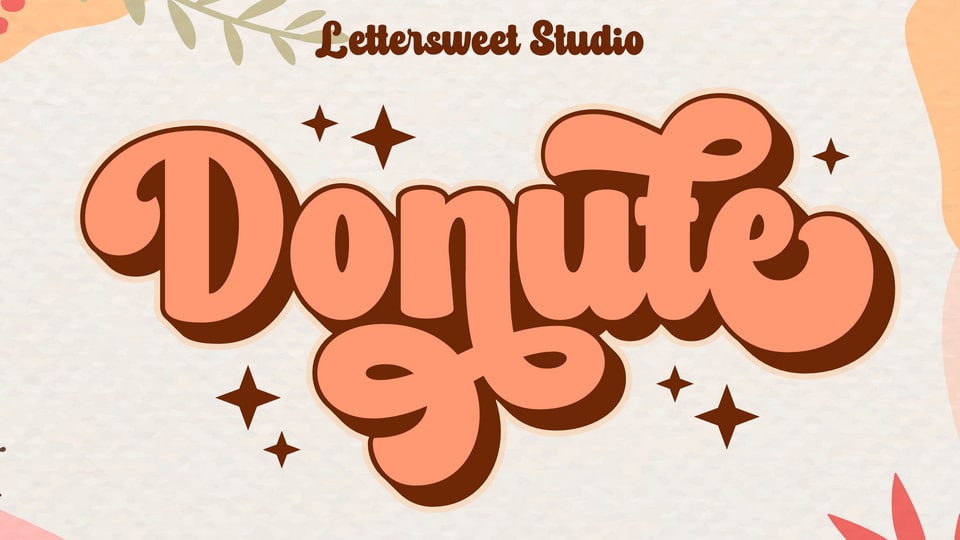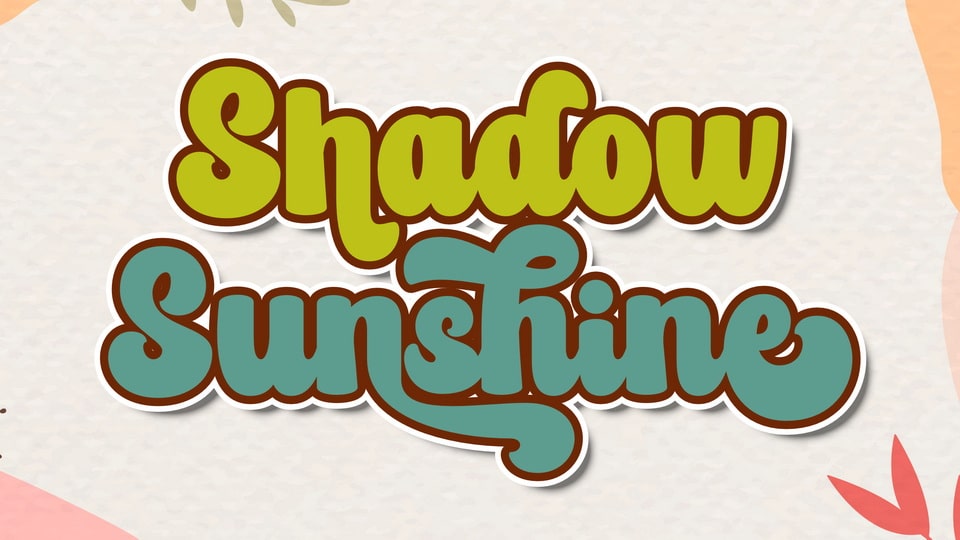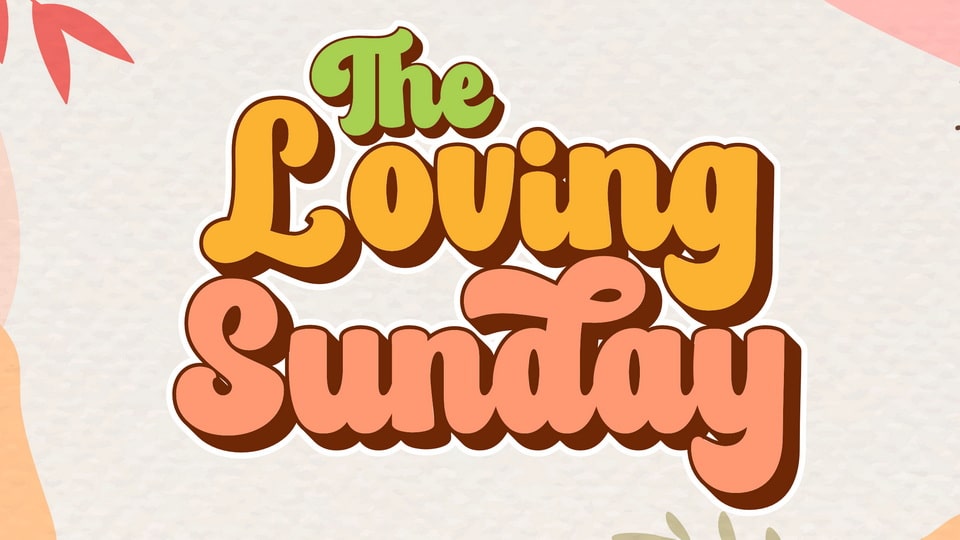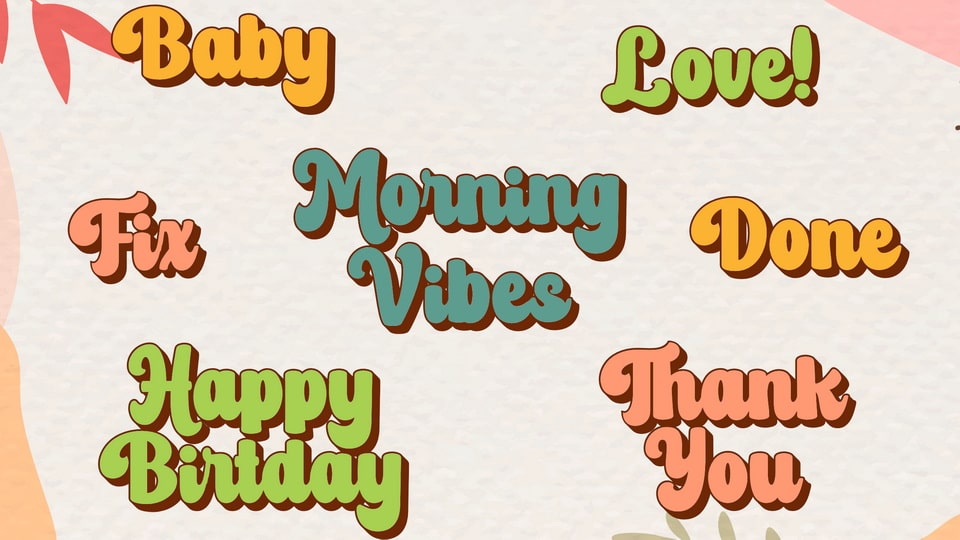
Donute is a bold and retro styled display script font, featuring a cool flow. It has beautiful and well balanced characters and as a result, it matches a wide pool of designs.